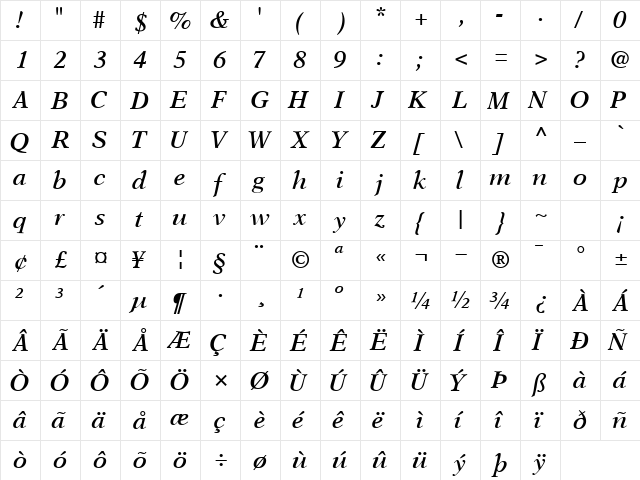
OrchidSSK SemiBoldItalic
Design Context for OrchidSSK Typeface
OrchidSSK takes a measured approach to typography — its balanced proportions and neutral character make it a reliable workhorse for both digital and print work. The dynamic lean of this cut emphasises speed and emphasis in any layout. The heavy weight commands attention and anchors typographic hierarchies.
Pro Tip: Use OrchidSSK for emphasis, pull quotes, and subheadings where its slanted energy can add rhythm to the layout.